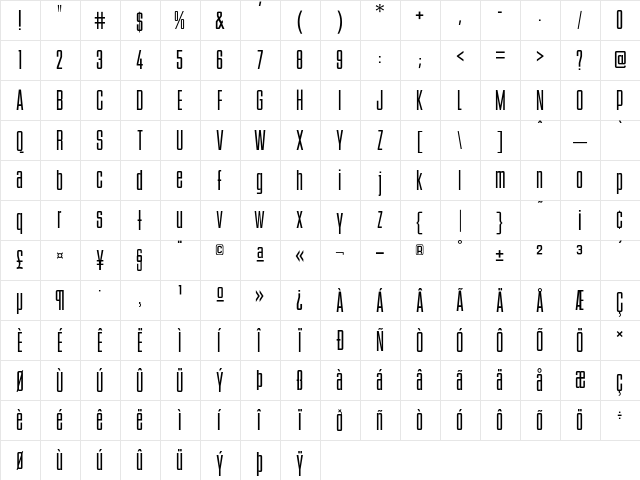
BStyle Regular Font Preview
BStyle Regular
BStyle Regular Font Details
Design Context for BStyle Typeface
BStyle takes a measured approach to typography — its balanced proportions and neutral character make it a reliable workhorse for both digital and print work.